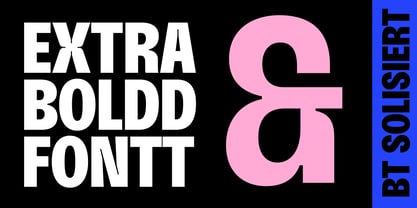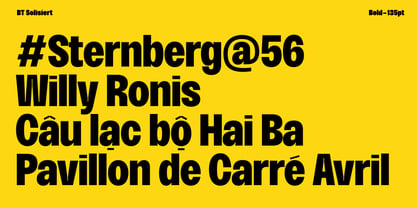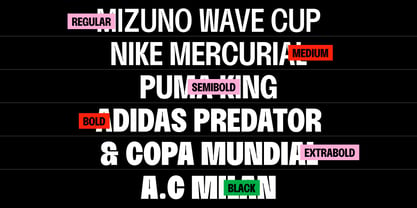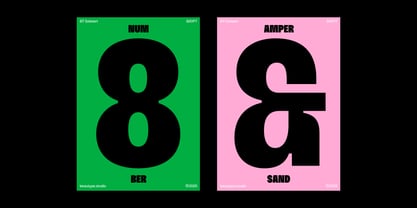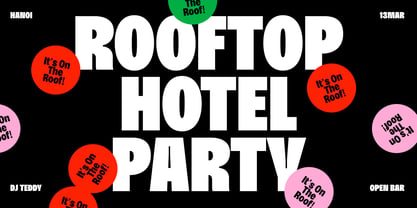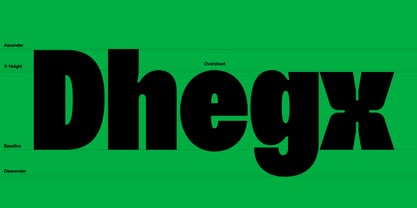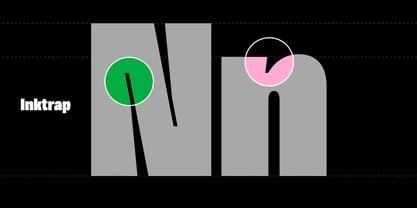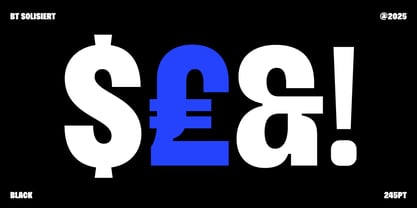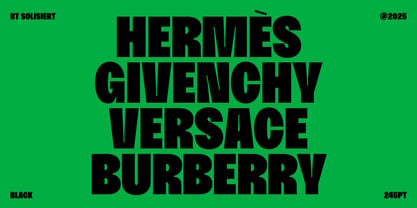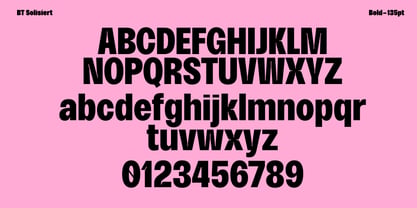
BT Solisiert
by BeauType
The BT Solisiert Font Family was designed by and published by BeauType. BT Solisiert contains 6 styles and family package options. More about this family
Youthful, dreamy, and savage. BT Solisiert was inspired by the joy of savoring weekend parties with friends. This typeface, with its inktraps and adorable tiny diacritics, brings lively rhythm and energy to any designer’s textbox. Its square structure combined with thick, rounded curves keeps the typeface balanced and sturdy, yet still soft and friendly. BT Solisiert is best displayed at large scales, on big screens, and on outdoor billboards. With a single Upright style and 6 weights ranging from Regular to Black, the typeface has the flexibility to be used for a variety of applications. It supports more than 100 languages worldwide, capable of standing on its own in a design or pairing well with other typeface.
Foundry: BeauType
About BeauType
BeauType, a Vietnamese type foundry under Beau Agency, is dedicated to crafting elegant and functional typefaces. They delve into typographic research and offer a range of type-related services. Their fonts are crafted to enhance digital and print designs, catering to diverse branding and creative needs. BeauType's commitment to quality and innovation makes them a leading voice in the Vietnamese type design scene.